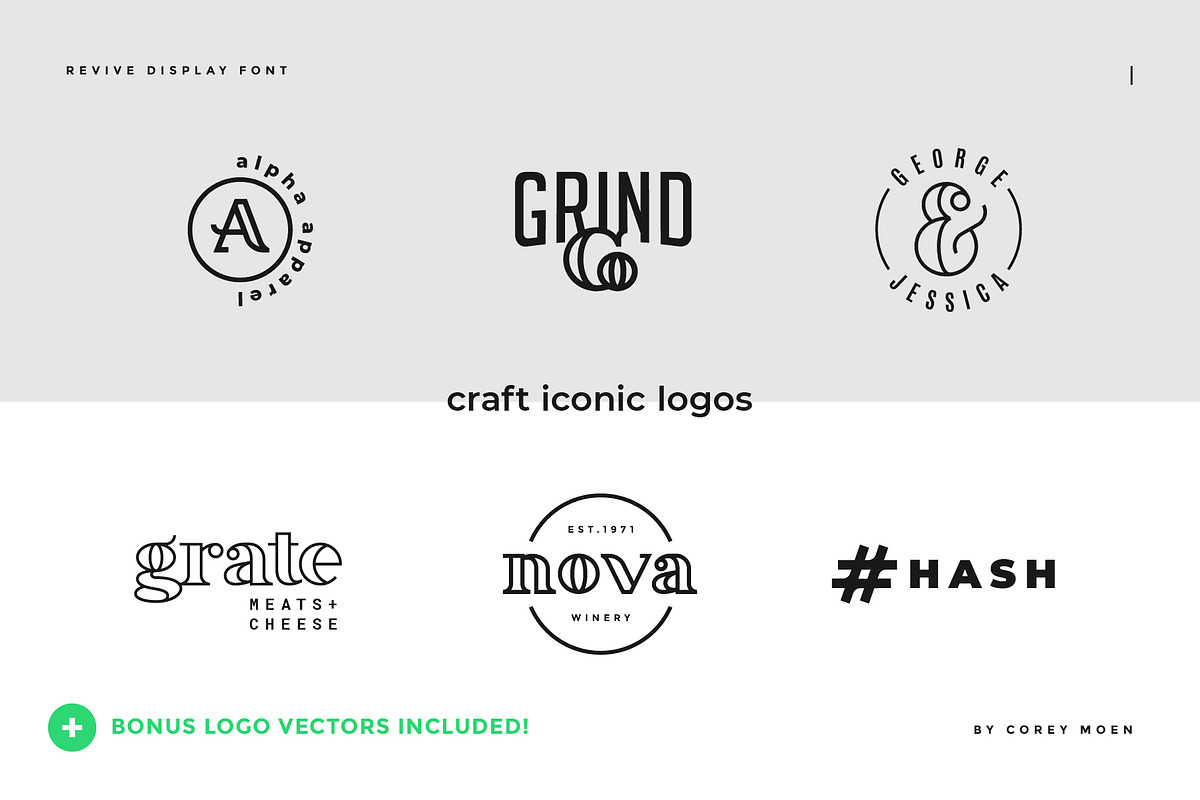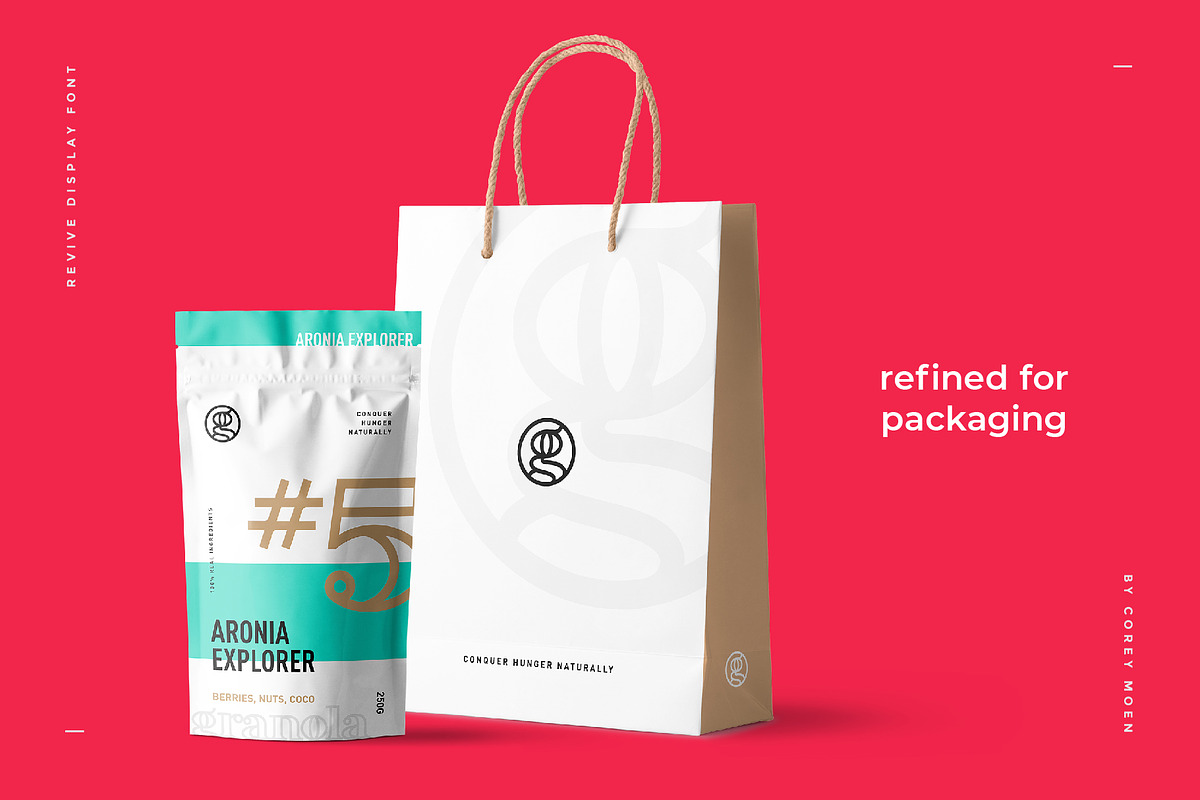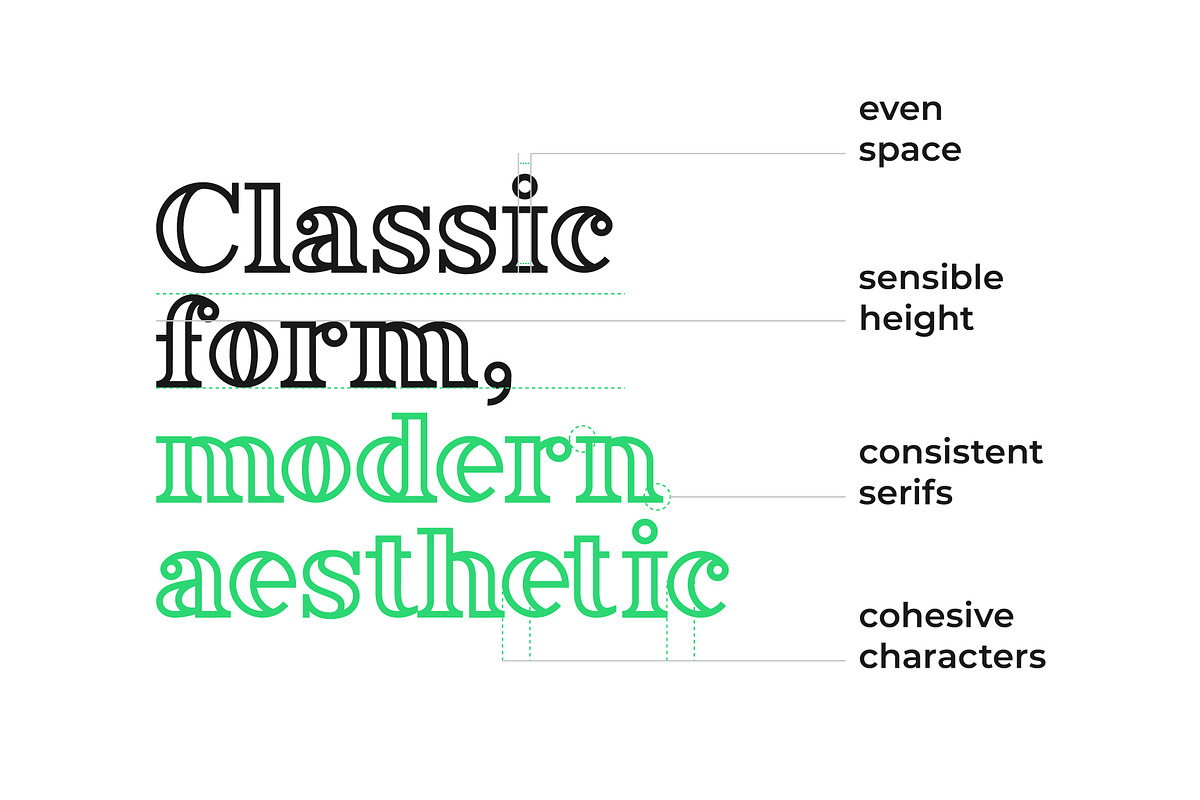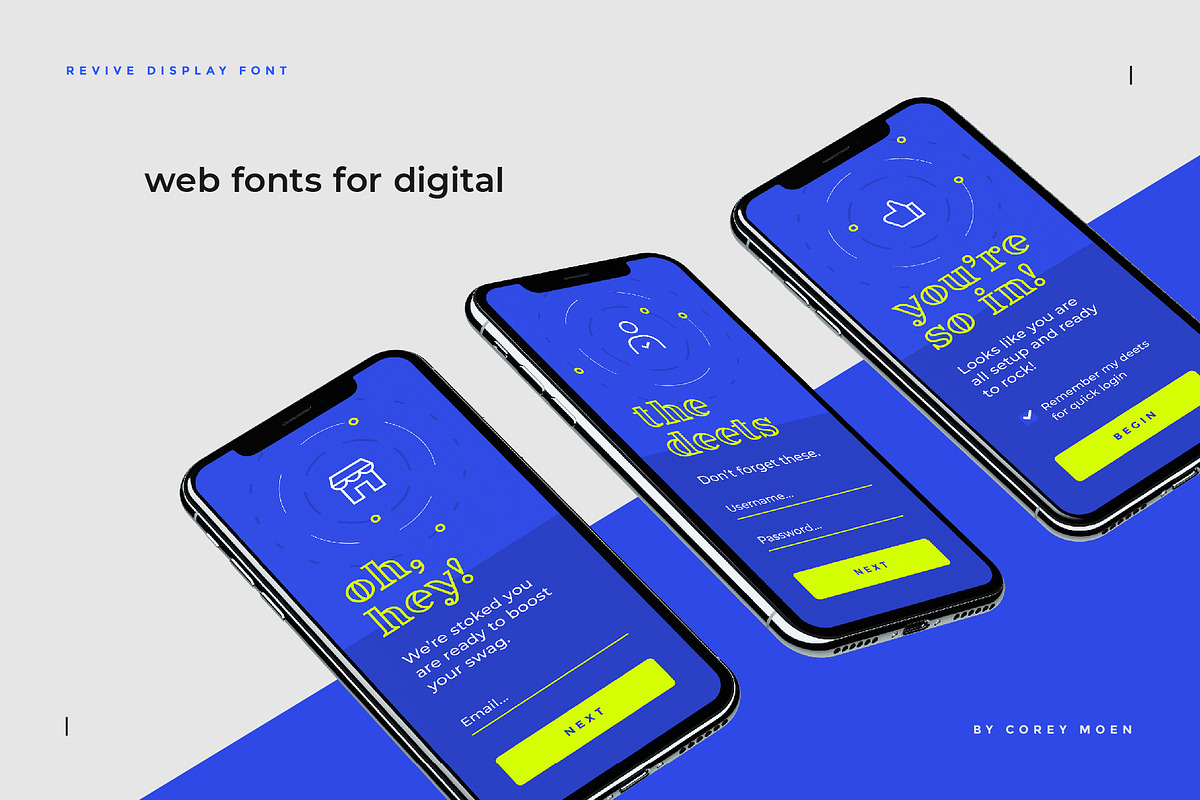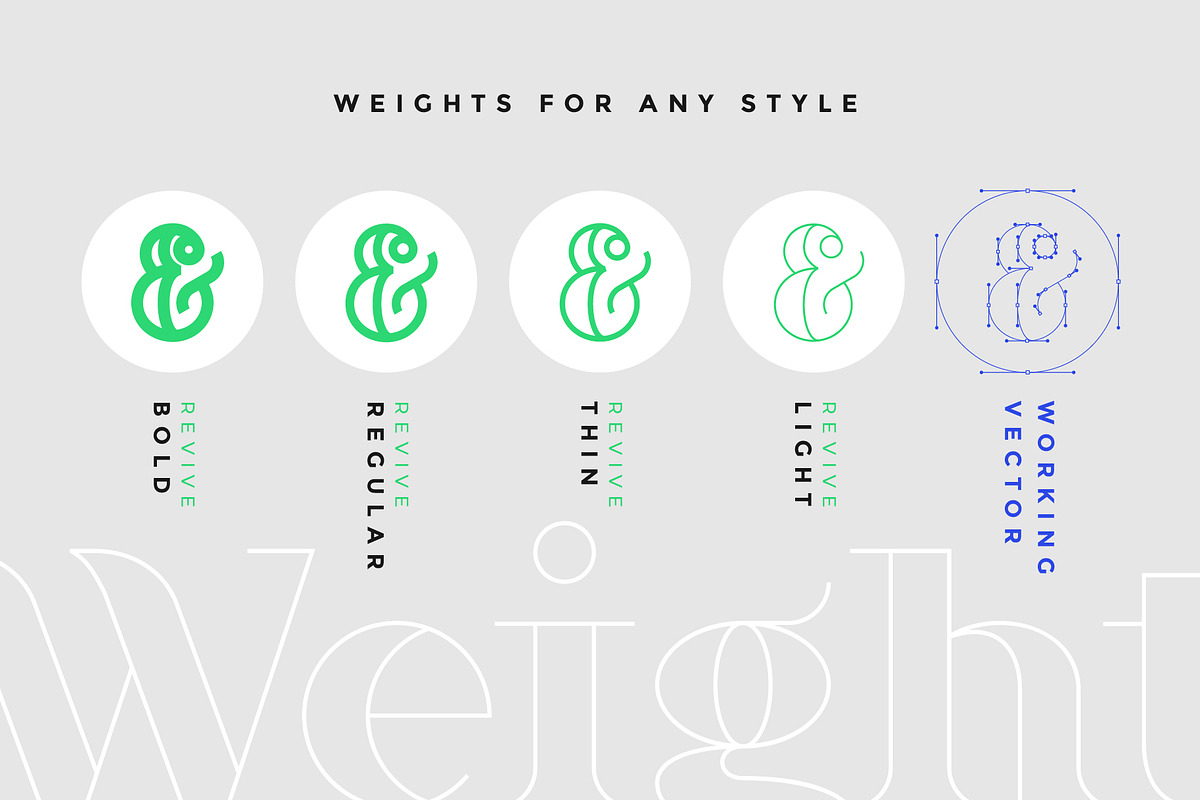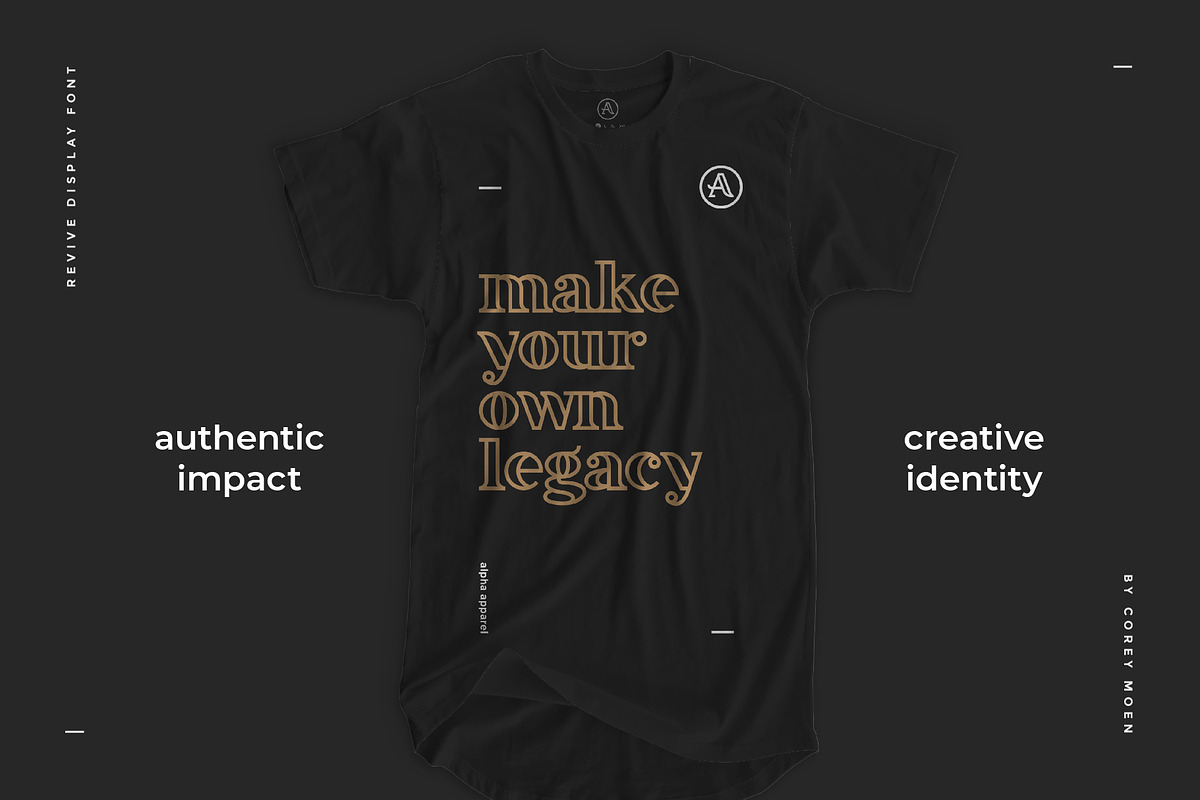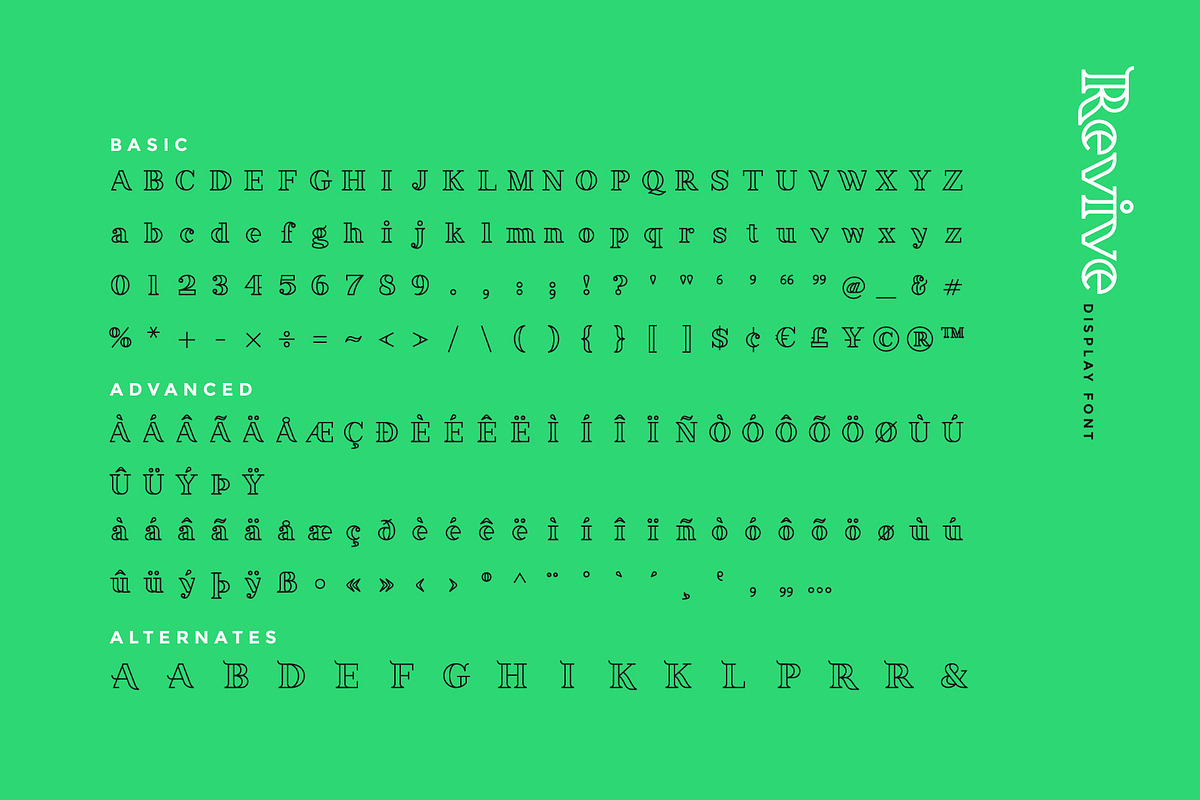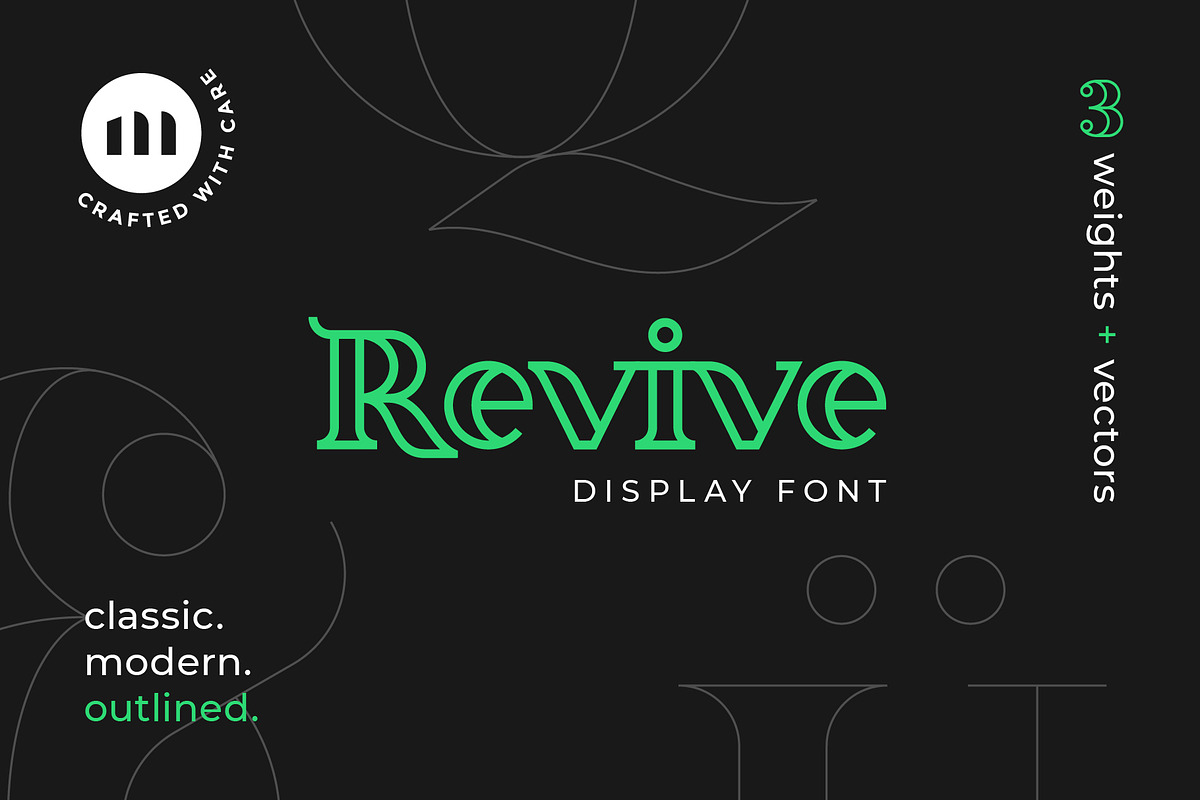
Revive Display Font
Revive Display is a beautiful combination of classic serif form with a modern and edgy line style aesthetic. This font is extremely versatile both as an iconic display typeface to elevate your brand or as a quick jump start to the next logo type you are creating. You can accomplish nearly any design challenge with all that's included! The full range of font file types covers all the bases, advanced characters set for multi-language support and even the working vectors strokes of the base font so you can customize the characters to your specific needs! Also included are some bonus logo samples created using variations of Revive combined with other modern typefaces.
Revive Display Font Includes:
Uppercase and Lowercase Characters
Advanced Character Set for Multi-Language Support
4 Weights: Bold, Regular, Thin, and Light
- Also included are some bonus logo samples created using variations of Revive combined with other modern typefaces.